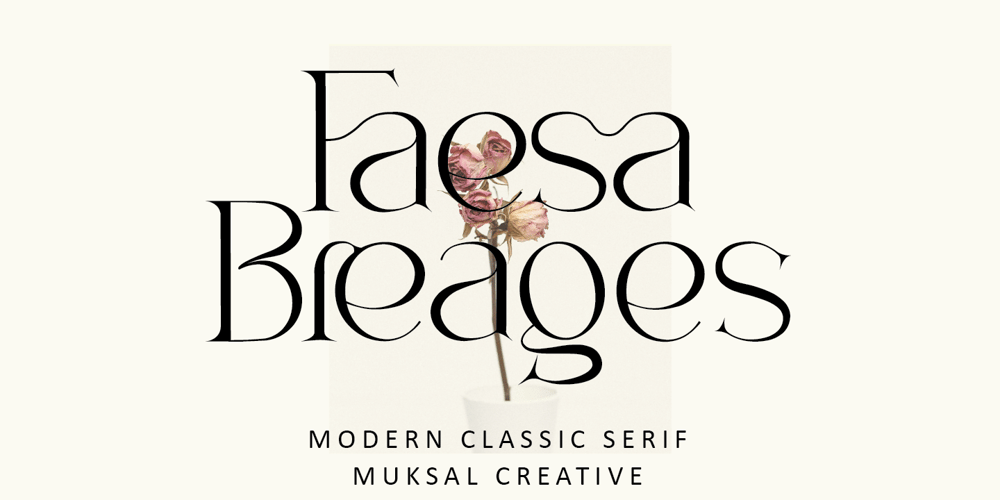
Faesa Breages
Faesa Breages font
Faesa Breages Font Family was designed by Muksalmina and published by Muksal Creatives. Faesa Breages contains 1 styles and family package options. Faesa Breages Modern Classic serif typeface with beautiful ligatures, special glyphs, ornament and multilingual support. It’s a very versatile font that works great in large and small sizes. Perfect for editorial projects, Logo design, Clothing Branding, product packaging, magazine headers, or simply as a stylish text overlay to any background image.Features:Lowercase and UppercaseLigaturesNumerals & PunctuationAccented charactersMultiple Languages Supported